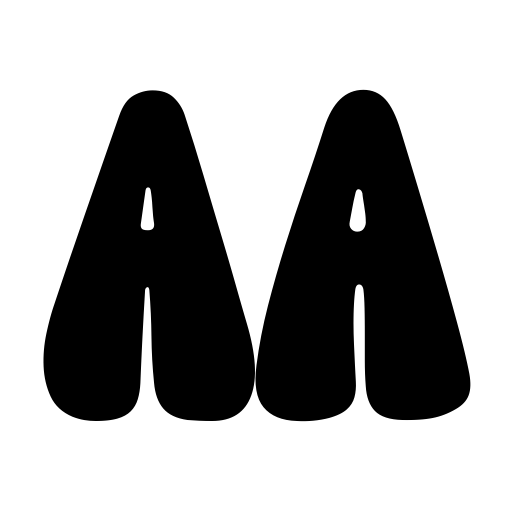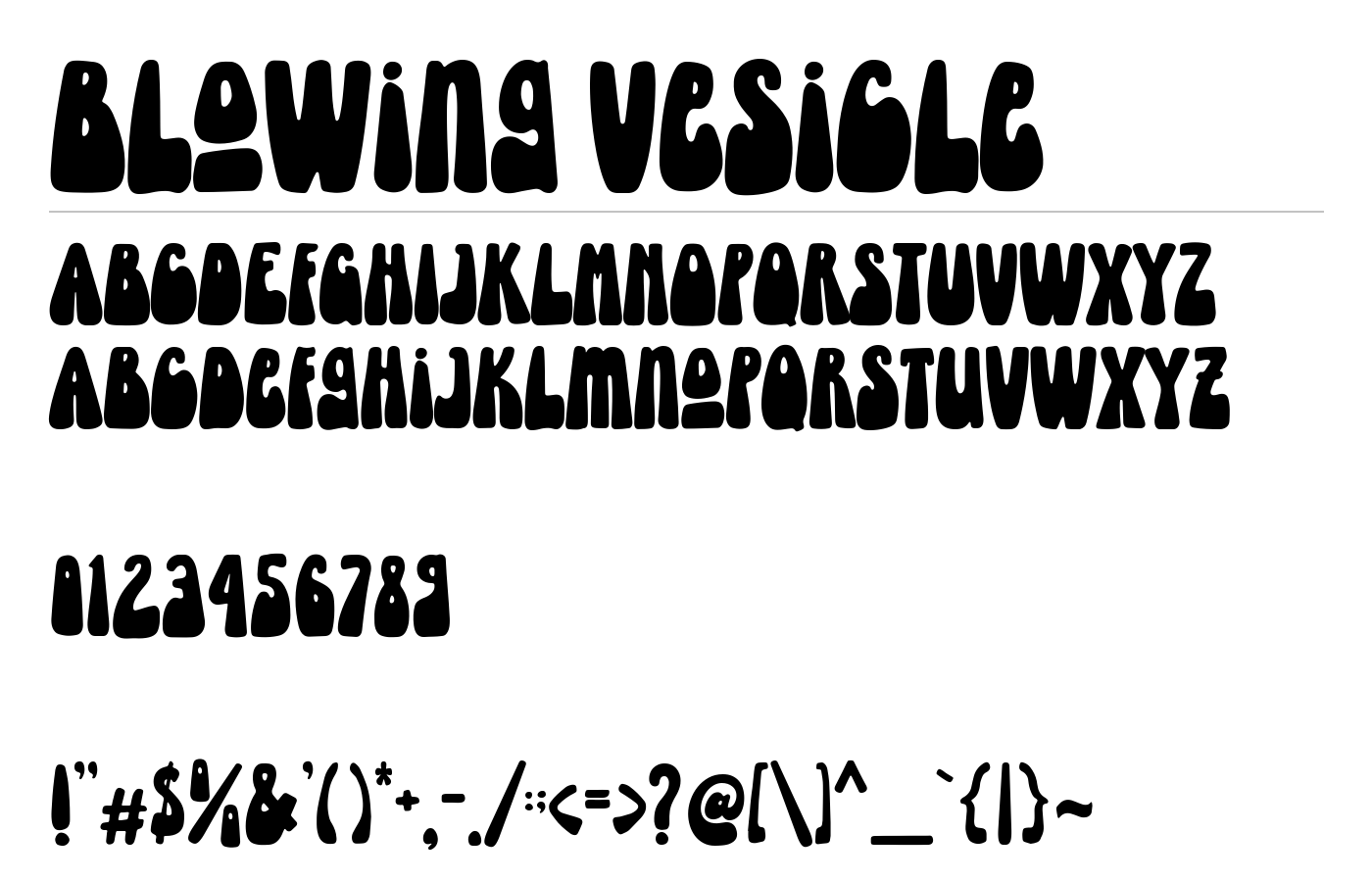
Blowing Vesicle is a playful, bold display font with thick, rounded letterforms that create a bubbly, organic feel. Its high x-height and uneven shapes give it a quirky, fun personality, perfect for eye-catching headlines, logos, and creative projects seeking a cheerful and informal vibe. This font works well for brands and designs that want to convey friendliness and creativity in a lively, approachable way.
Blowing Vesicle Font
About Blowing Vesicle Font
| Font family | Blowing Vesicle Font |